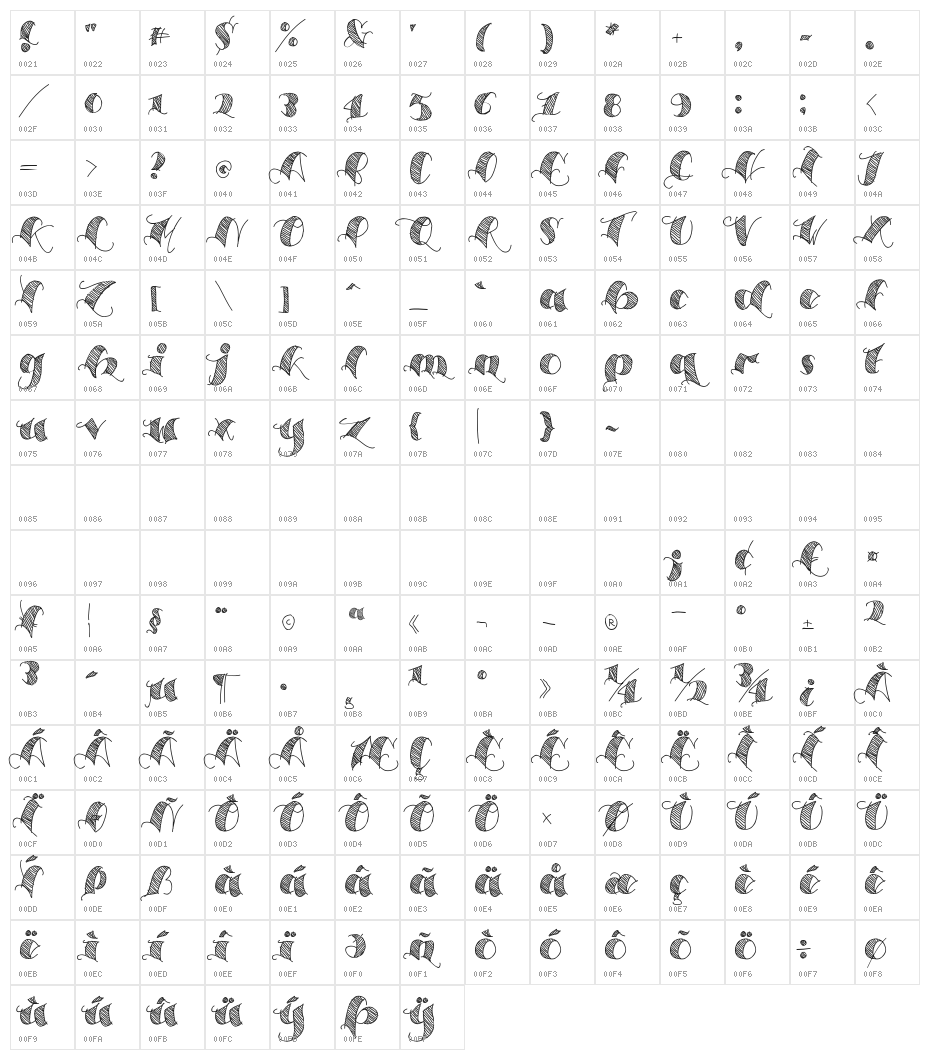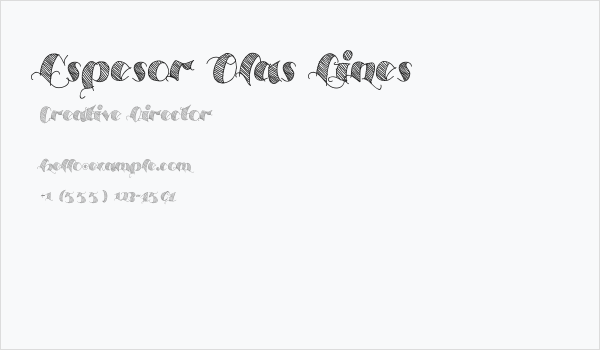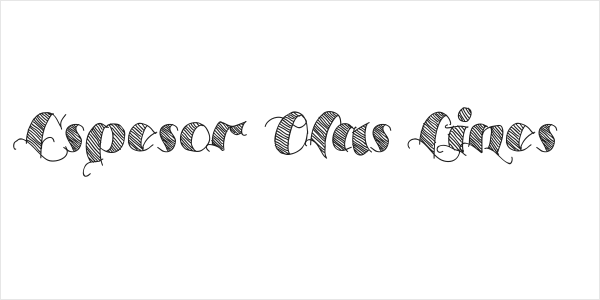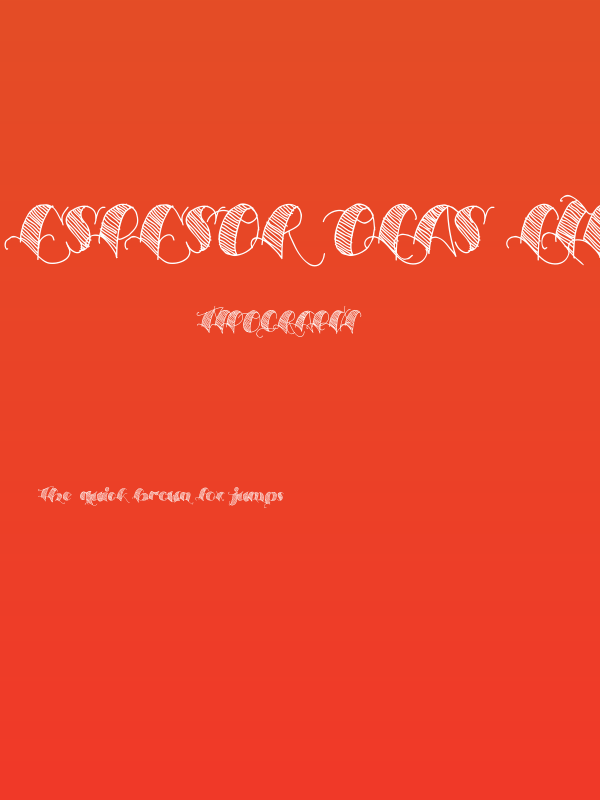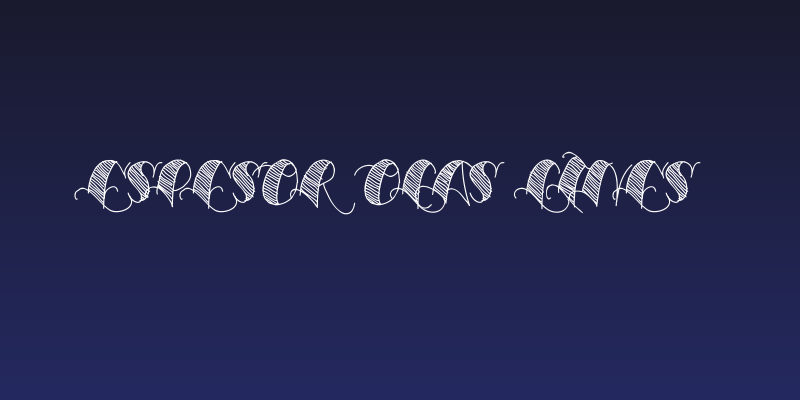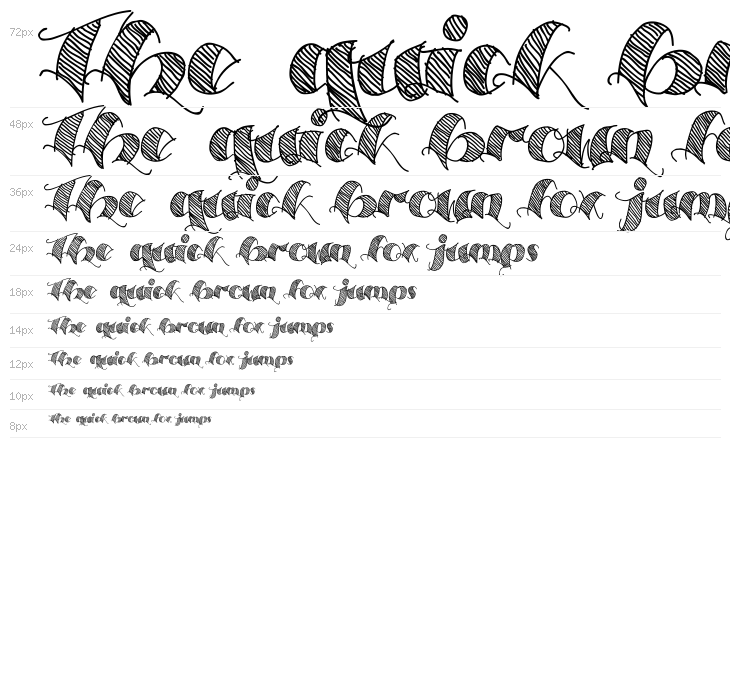
Espesor Olas Lines Font
Espesor Olas Lines Description
This font exhibits a dynamic and flowing script style, characterized by its intricate line work and elegant curves. Each letter is adorned with diagonal hatching, adding a textured appearance that enhances its visual appeal. The uppercase letters are bold and expressive, while the lowercase letters maintain a consistent fluidity, creating a harmonious balance. Numbers and special characters follow the same stylistic approach, ensuring uniformity across all glyphs. The font's unique design makes it suitable for artistic and decorative purposes, where a touch of sophistication and creativity is desired.
| Proposed Projects | Ideal for wedding invitations, artistic posters, branding, and decorative projects. |